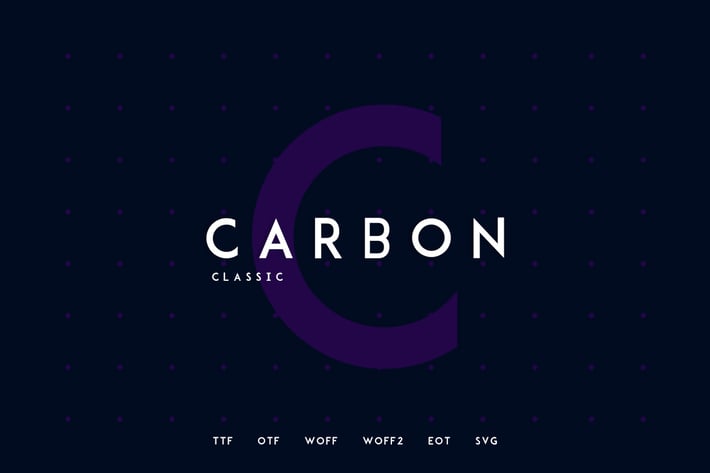
Carbon - Classic Typeface + WebFonts
Carbon Classic Typeface
Carbon Classic is a Classic Sans Serif typeface very much suitable for Film Posters, headlines, Block letter, Subheading, Logo Designs, Big Banners. Creative & Decorative Typography Web Designs.
Carbon Classic is perfectly suited for eye-catching headlines. Its clean appearance and mid-weight make it a wonderful candidate for being paired with more decorative, elaborate subheading fonts.